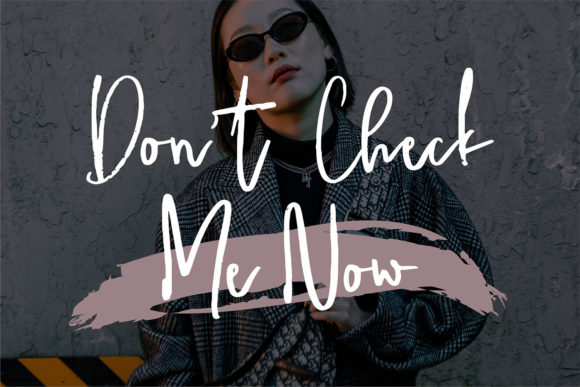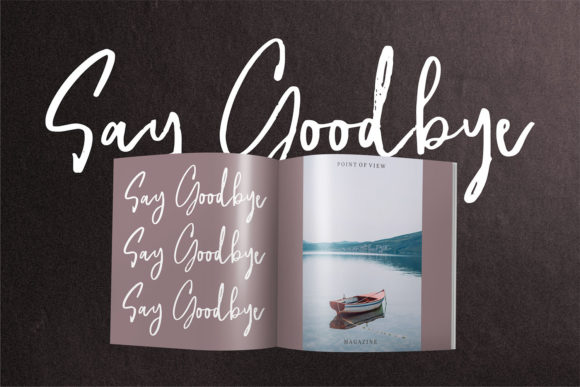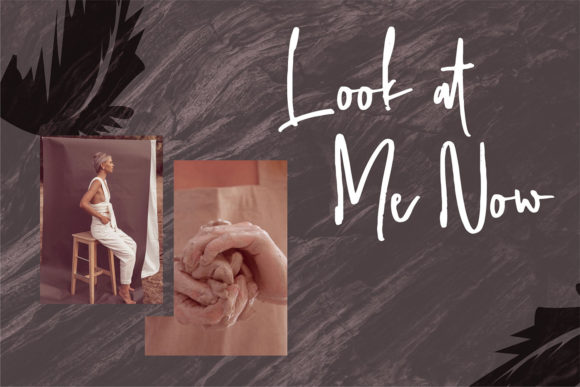
Introduction to Kally Font
Kally is a stylish and uniquely lettered paint brushed handwritten font.
This font was particularly crafted for those who need a beautiful and refreshing look to their designs .